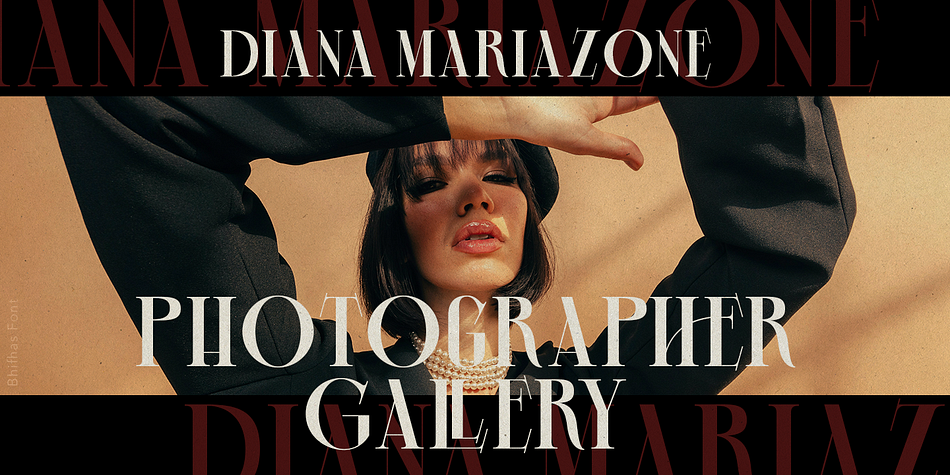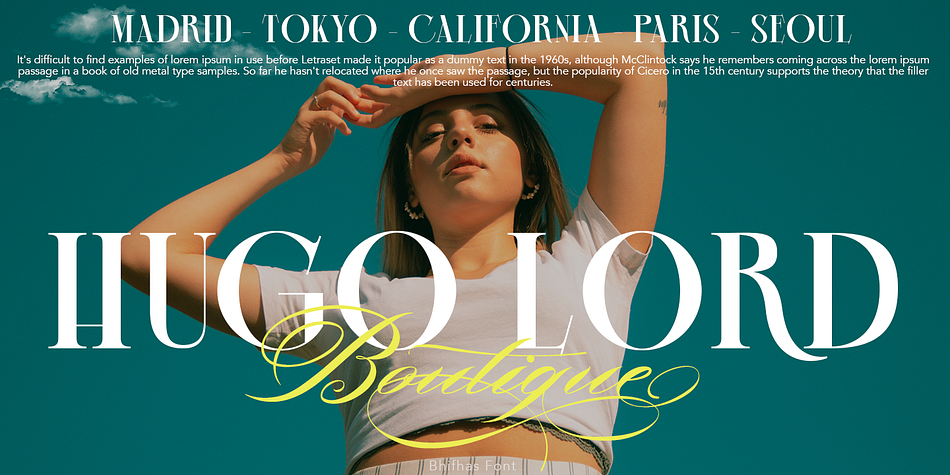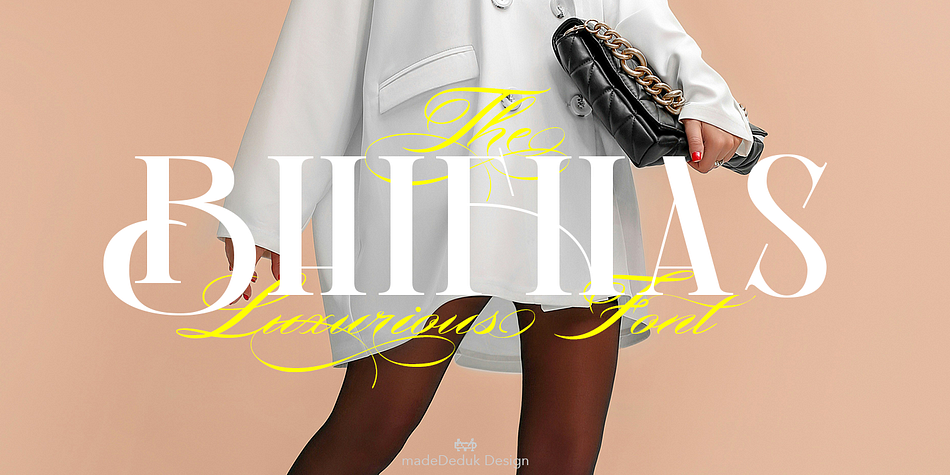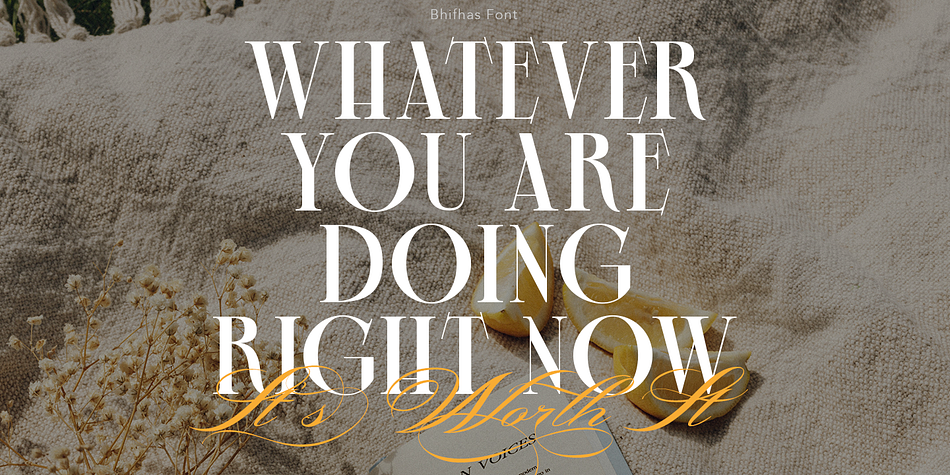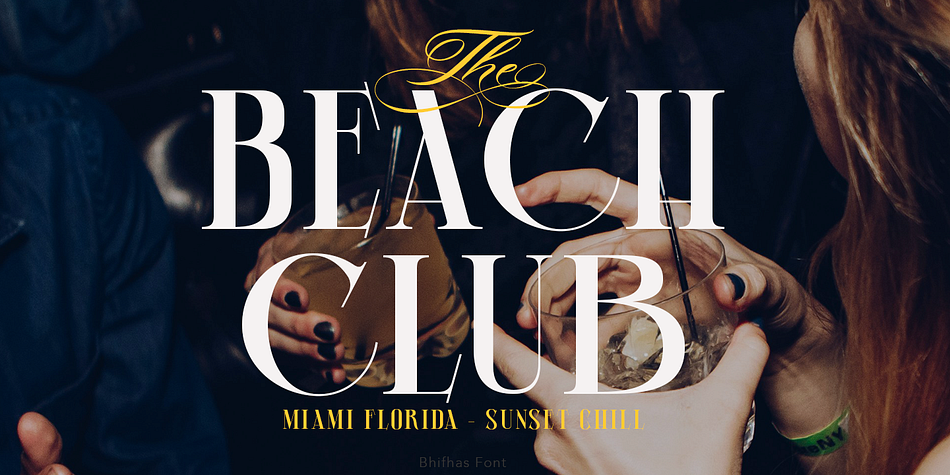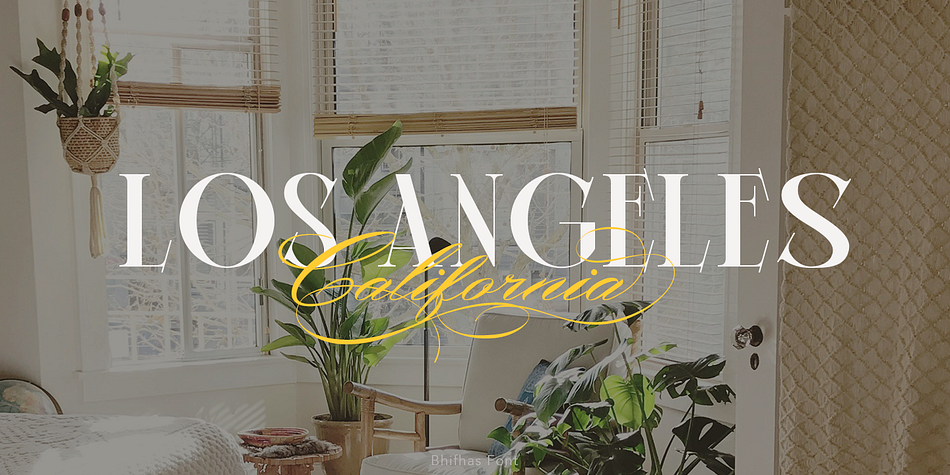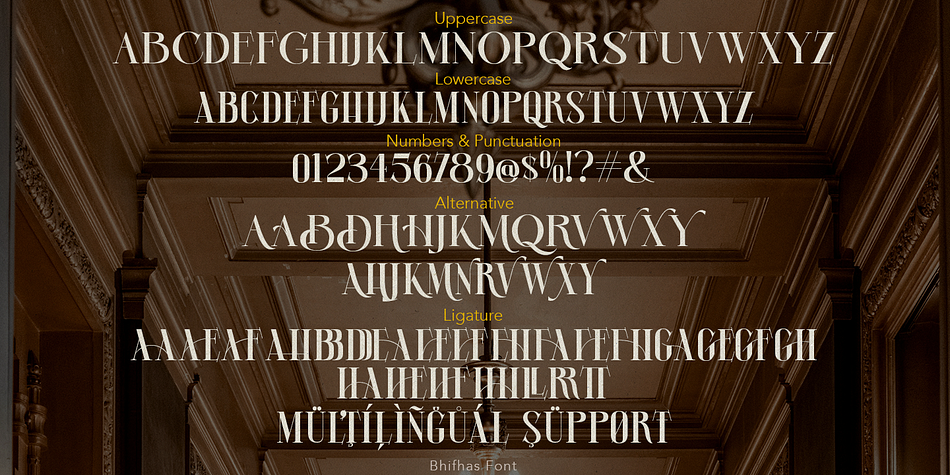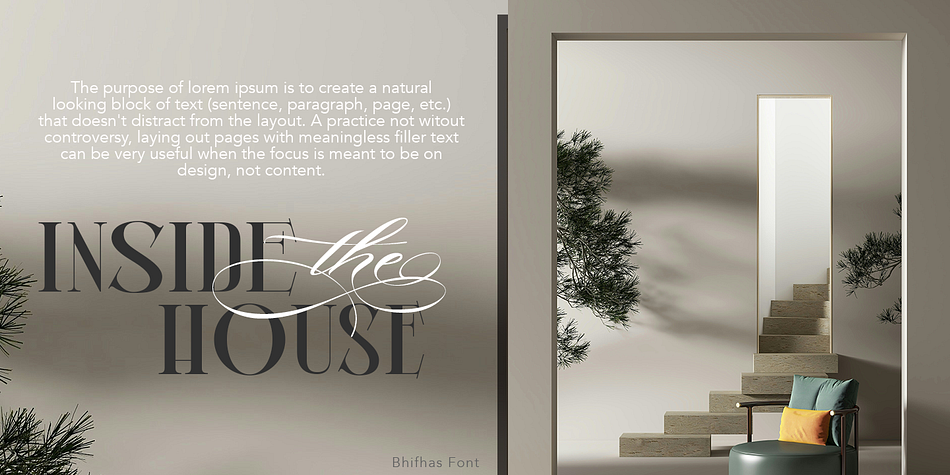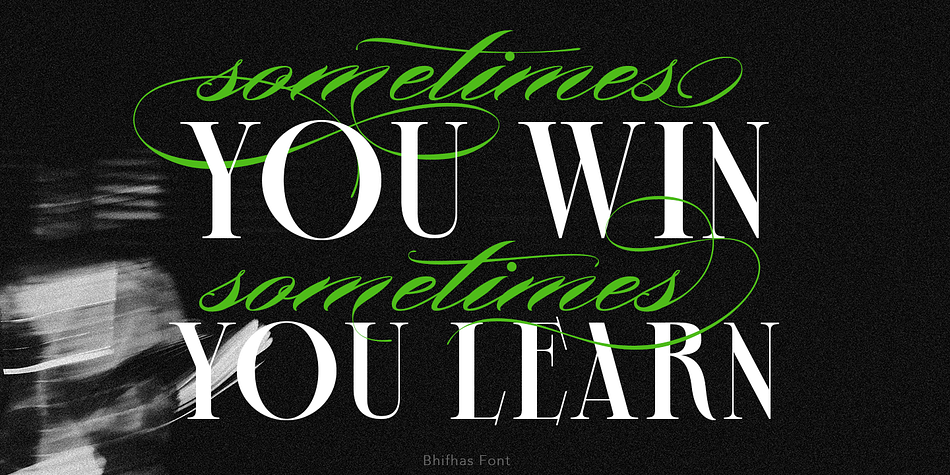
Bhifhas
Designed by Suandana Ipandemade, Bhifhas is a display serif font family published by madeDeduk.
Bhifhas is a serif display, come with single weight and all caps, legible and expressive shapes. A lot of stylish alternates characters and ligature will makes this font suitable for your any project design.
- Alternative
- Ligature